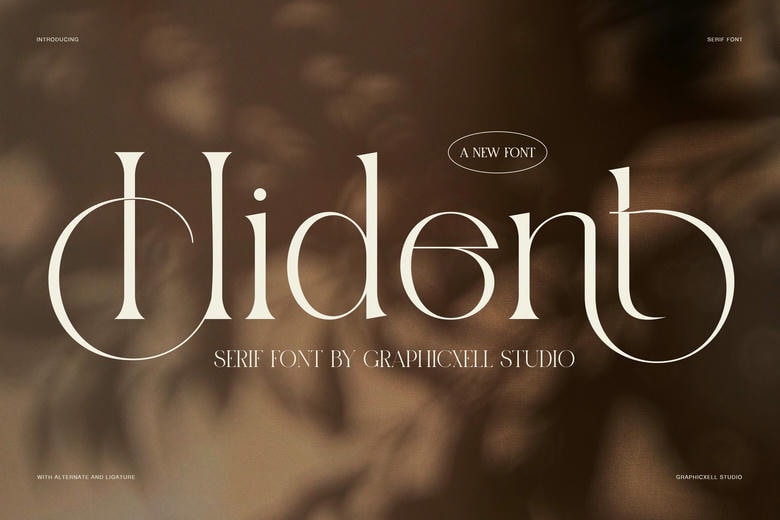
Hident Font
Hident is an elegant serif display font with high-contrast strokes, refined curves, and a modern luxury look. It is made to give branding, editorial layouts, and fashion projects a strong visual impact. This font helps any design stand out with a premium and stylish feel.
Hident Elegant Serif Font